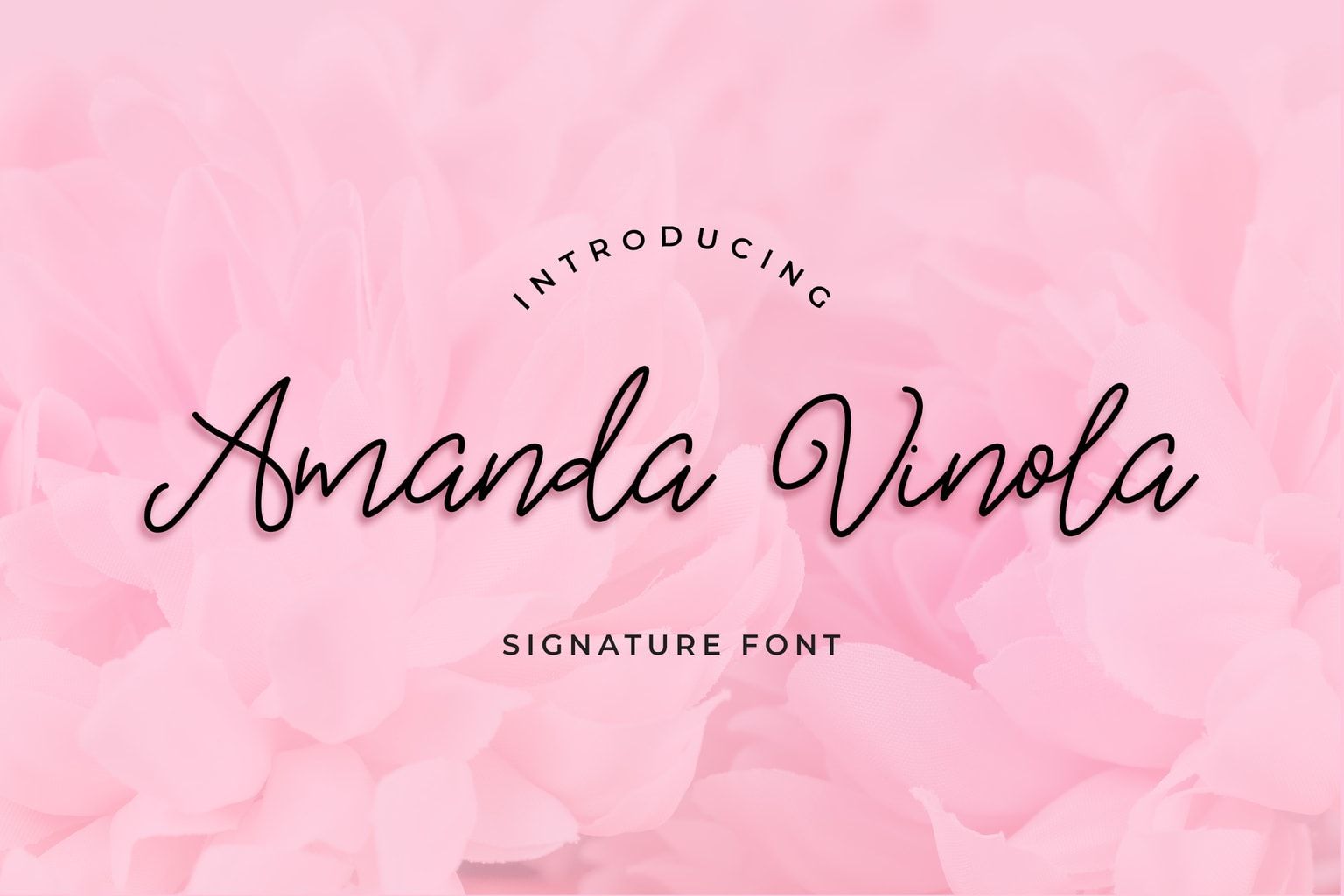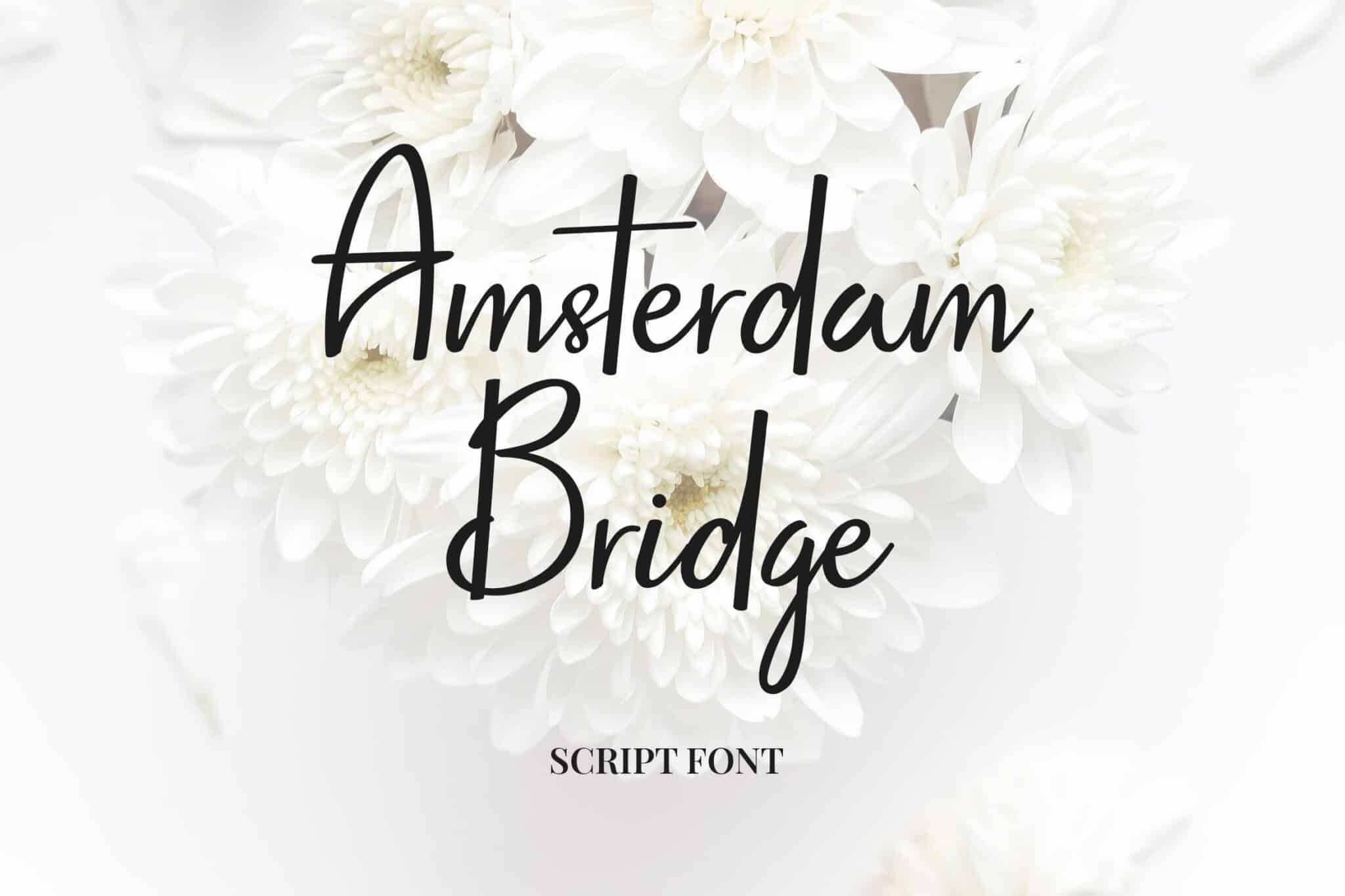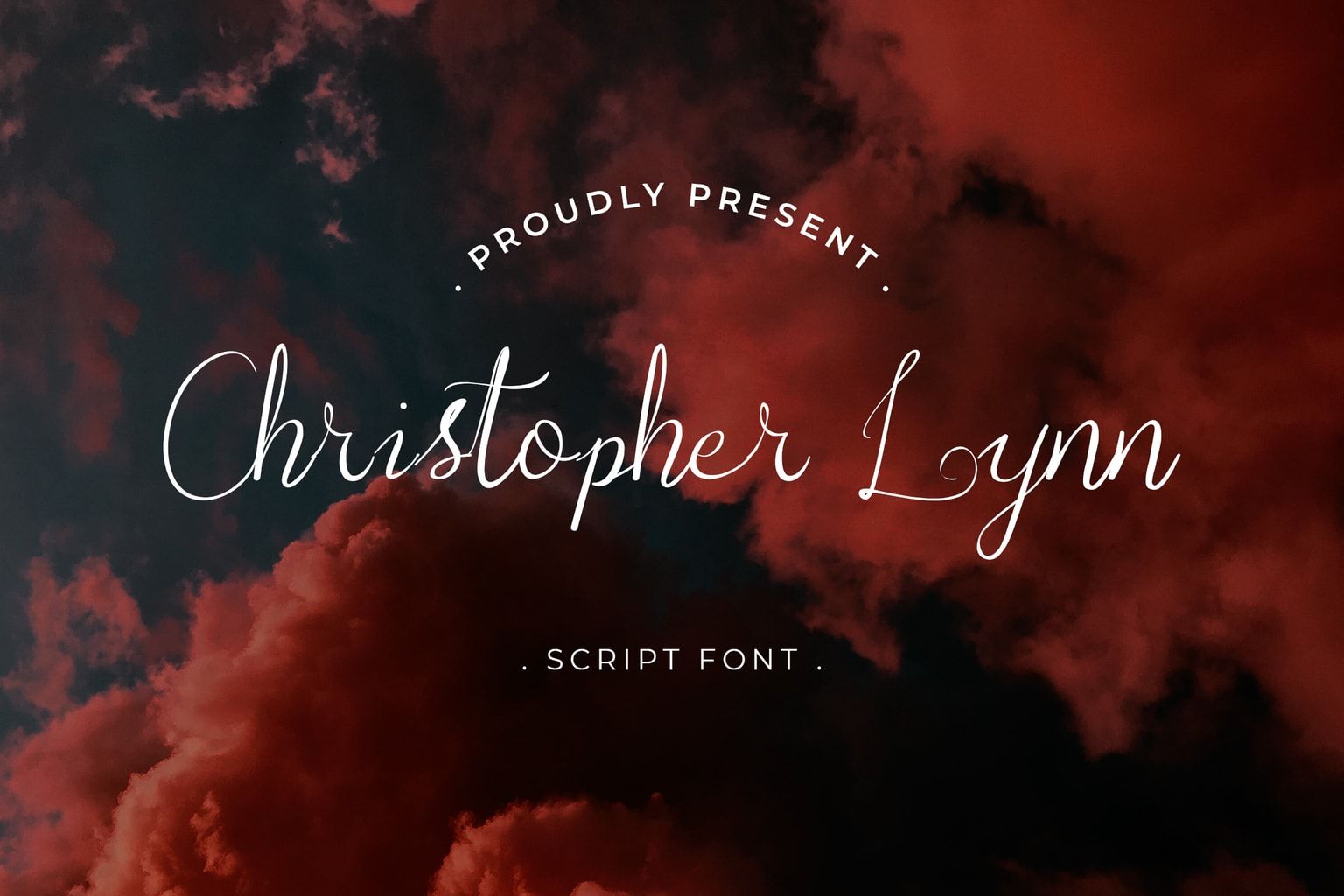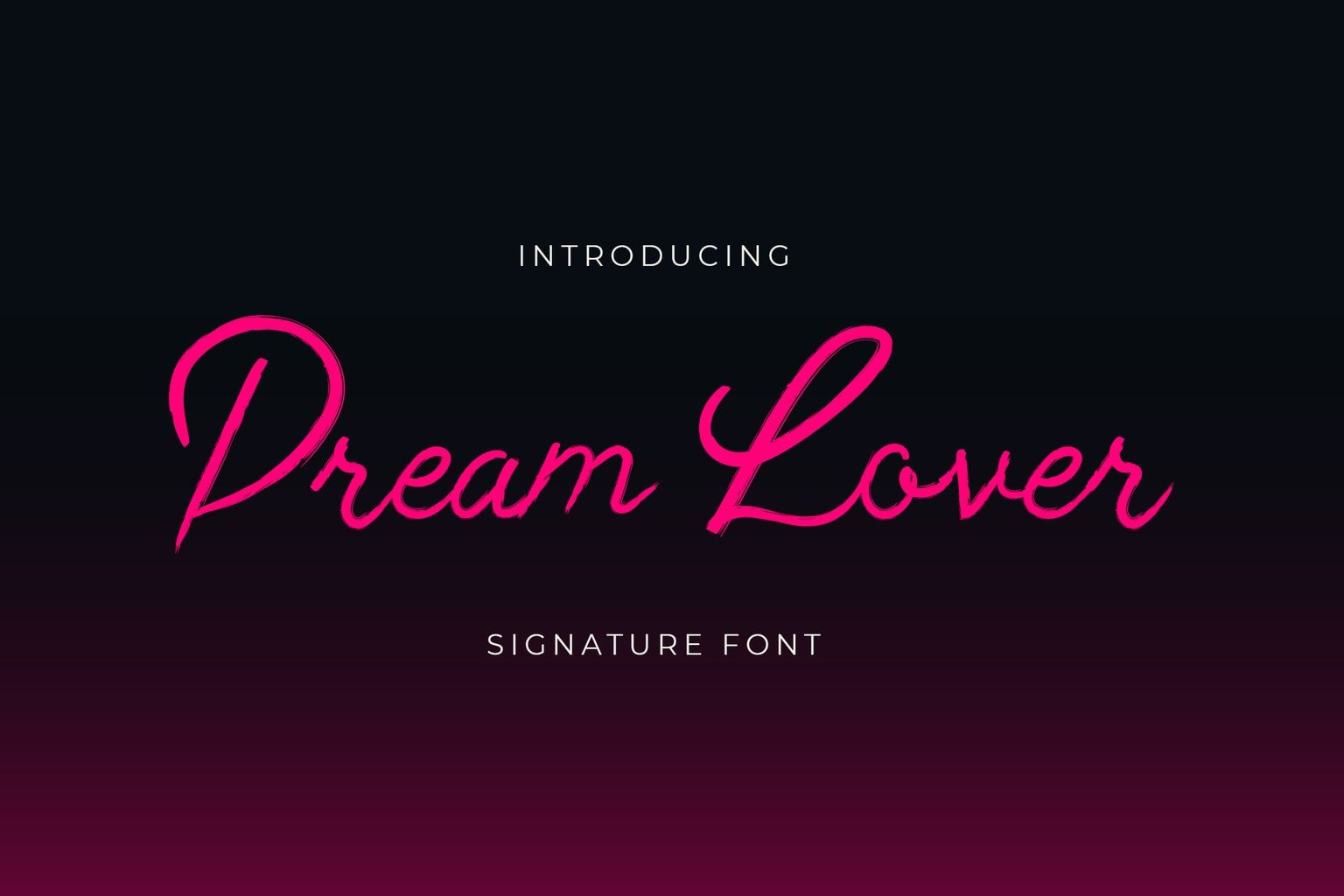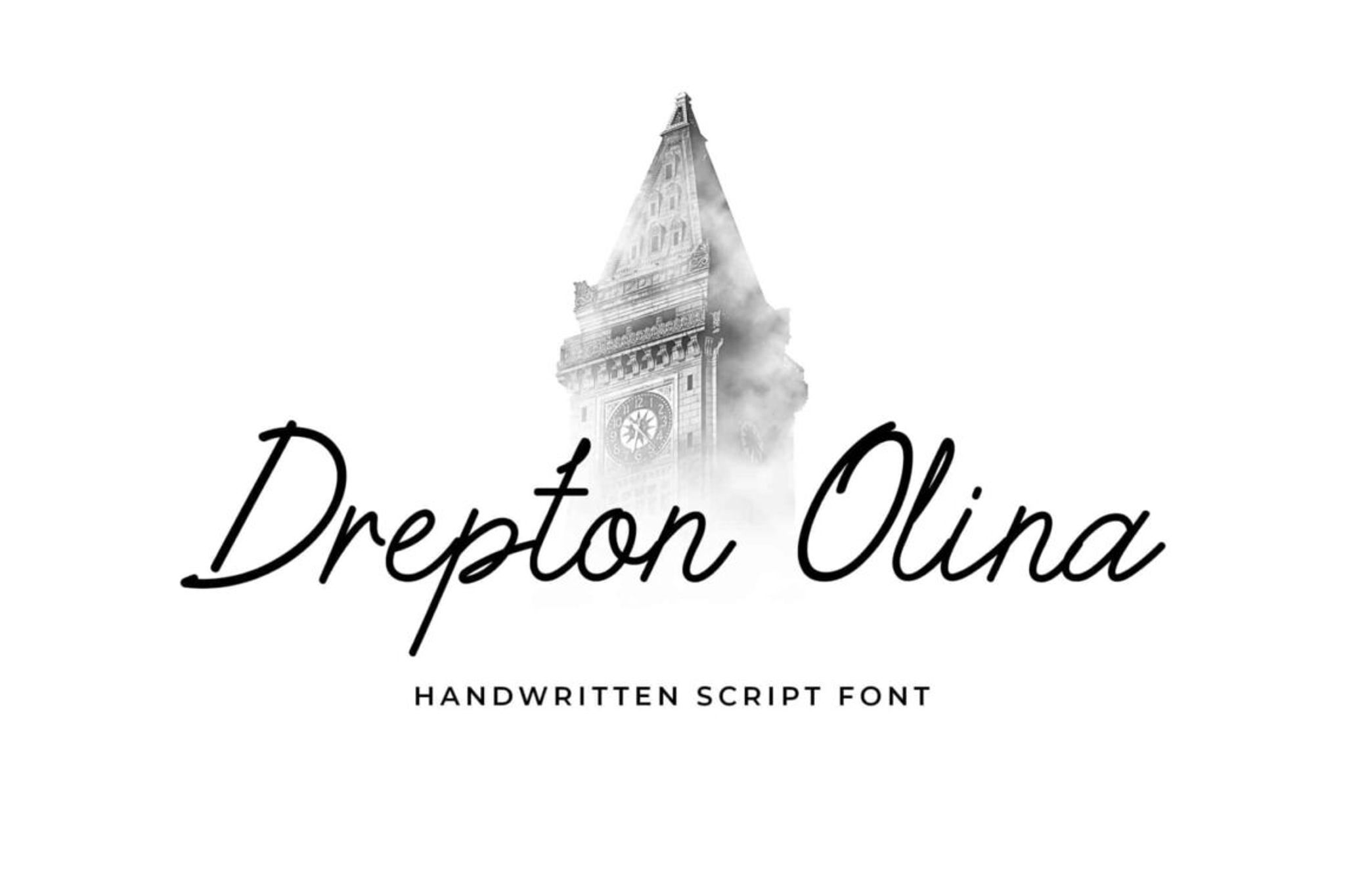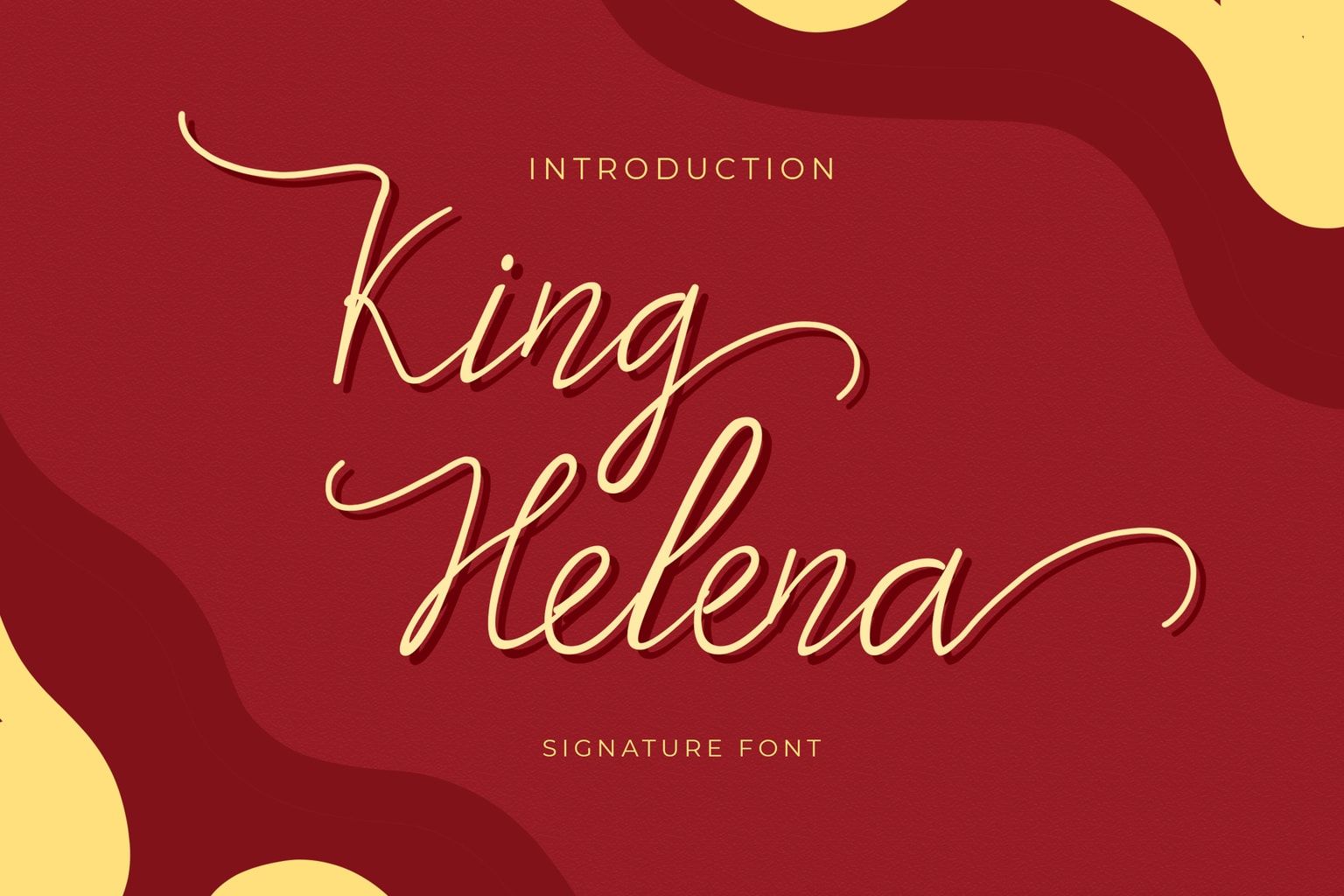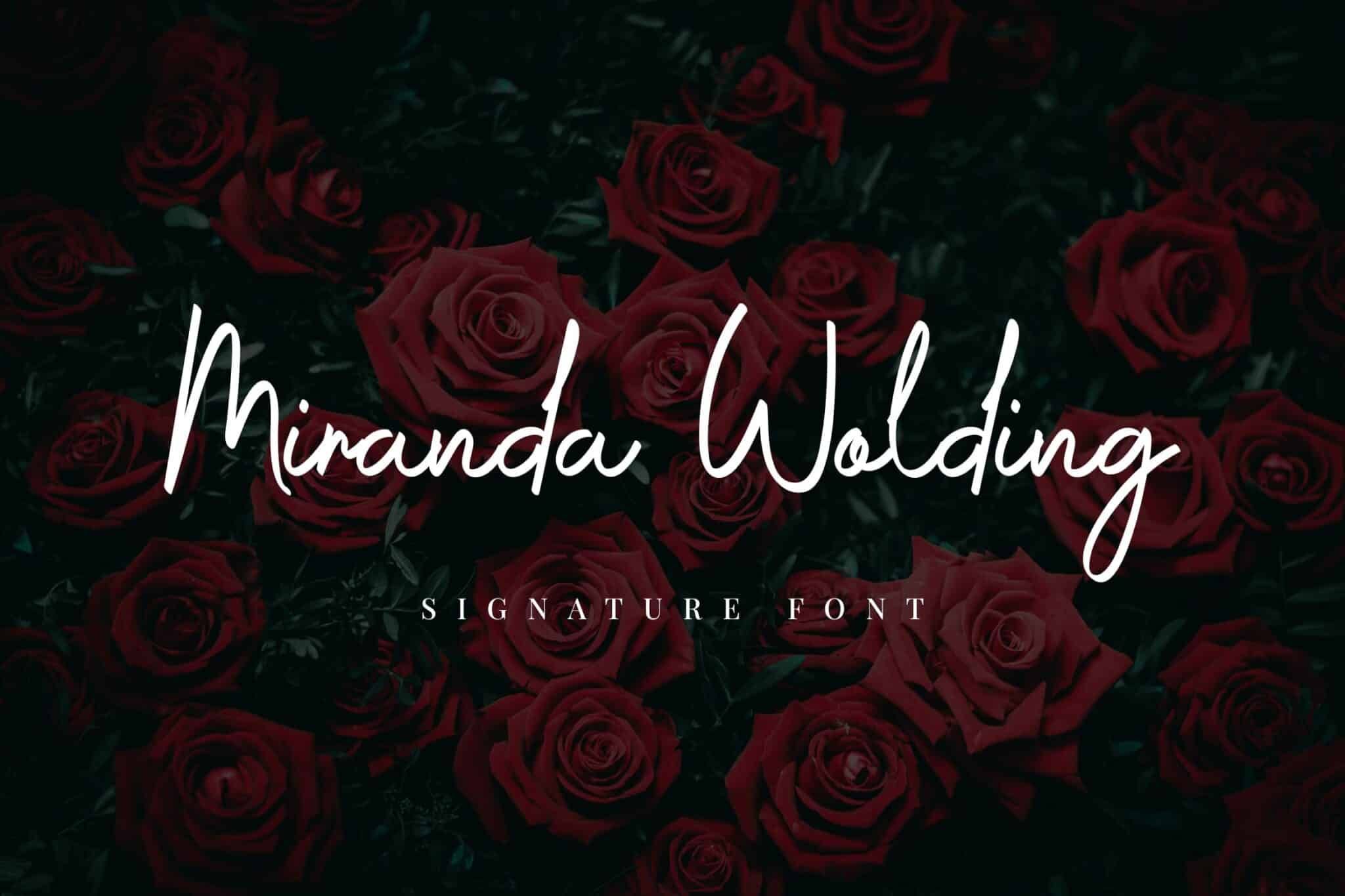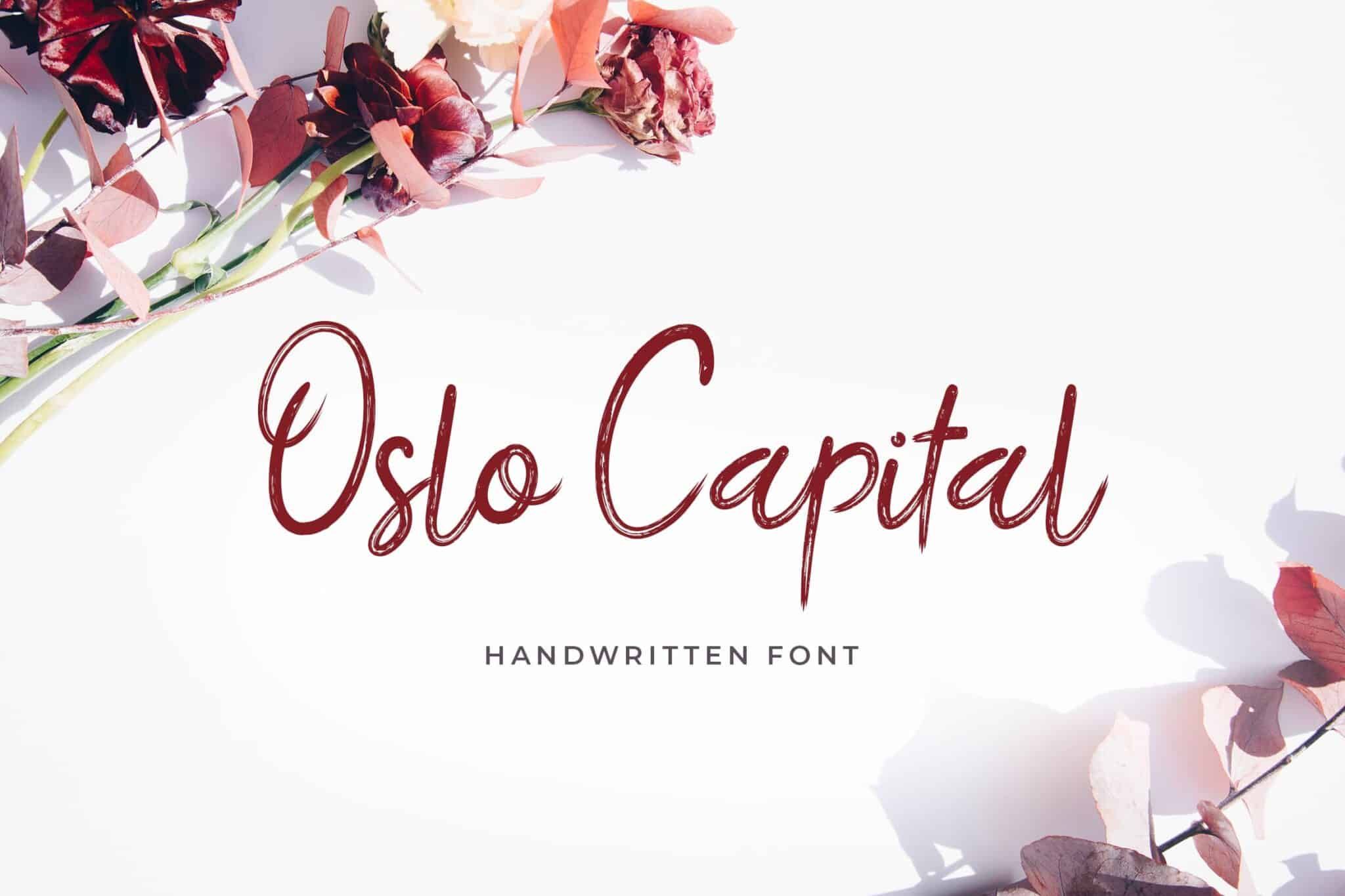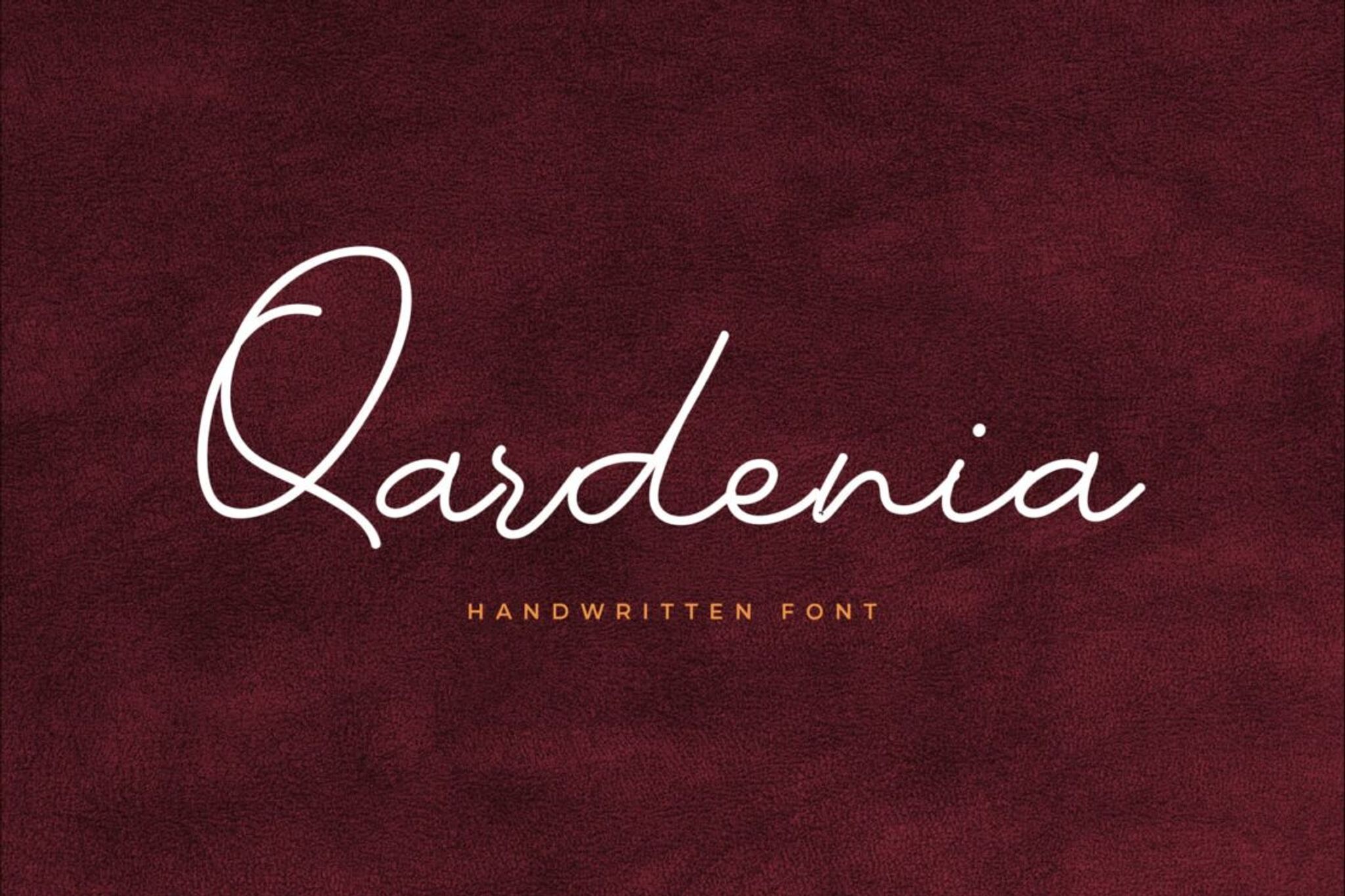
10 Best Romantic Fonts for Valentine Day
This feature is for you if you’re looking for the top 10 romantic fonts (romantic cursive fonts, best romantic fonts) currently available on the market. You can be sure that there will always be a romantic vibe in the air, and it won’t matter what time of year it is. Romantic fonts will always be excellent visual solutions that help you effectively communicate a message. Whether designing greeting cards, putting the finishing touches on wedding invitations, or preparing lovey-dovey marketing materials for Valentine’s Day, this holds.
We have compiled a list of the 10+ best romantic fonts currently available online. From scripts to serifs to handwritten typefaces, the team here at UICreative is dedicated to assisting you in presenting your narrative to the best of your ability as a storyteller.
What is the meaning of romantic fonts?
Romantic fonts is a modern classic with a sleek and luxurious serif display font. The elegant mood boards and logos you create will significantly benefit from this font. Romantic fonts include a variety of small caps, alternatives, ligatures, numerals, punctuation, and international characters.
Best Romantic Fonts
1. Amanda Vinola Handwritten Script Font
Amanda Vinola Handwritten Script Font
The Amanda Vinola Handwritten Script Font looks excellent on invitations, social media posts, and promotional posters. Beautifully feminine curves move in all the right places, making this a perfect option for romantic endeavors. This promotional option is a winner for any anniversary or Valentine’s Day campaign!
2. Willmard Valiant Signature Font
Willmard Valiant Signature Font
UICreative’s Willmard Valiant Signature Font was created to tribute the strong women in the designer’s life. Any branding or promotional materials you’re working on will benefit from this gem’s timeless yet modern touch.
3. Qardenia Signature Font
Qardenia Signature Font
Are you seeking a typeface that manages to be both adorable and ethereal simultaneously? If that’s the case, you should try the Qardenia Signature Font. This font choice, which features graceful cursive romantic fonts and a slimline appearance, works particularly well for wedding invitations and promotional designs for all aspects of romance and love partnerships.
4. Oslo Capital Handwritten Font
Oslo Capital Handwritten Font
The Oslo Capital Handwritten Font is successful in several ways. This product offered by UICreative is an additional dependable aesthetic option that can quickly finish any romantic fonts design. It features a beautiful script font. This option is excellent for branding and marketing materials because it features hearts and curves at the ends of certain letters.
5. Miranda Wolding Handwritten Script
Miranda Wolding Handwritten Script
Consider using the Miranda Wolding font for handwriting projects requiring a lovely script style. This font bundle is a beautiful selection that is both easy on the eyes and delightful to look at due to the presence of broad frames and curved edges throughout the set. This item, which features lettering reminiscent of that found on wedding invitations, is a cherished classic in the design scene. It is not difficult to understand why this is the case.
6. Drepton Olina Romantic Fonts
Drepton Olina Handwritten Font
This is a calligraphy font available on UICreative. It is evidence that calligraphy fonts are among the most powerful components of romantic design. This font bundle is slender and features many loops for many of its characters. As a result, it may be described as both dreamy and playful simultaneously. A pack such as this one gives you many options for your marketing, branding, and graphic design projects. There’s a lot you can do with it.
7. Amsterdam Bridge Handwritten Font
Amsterdam Bridge Handwritten Script
You will have a great time making the most of UICreative’s Amsterdam Bridge, regardless of whether or not you are a single creative person. This piece, which features another elegant-looking script font, is one of the typefaces on the list that may be used in various contexts. It is simple to see why so many people are drawn to these romantic fonts because it is not only sleek but also easier on the eyes and more legible than other fonts.
8. Dream Lover Brush Handwritten Font
Dream Lover Brush Handwritten Font
UICreative creates this and is likely to be recognized as one of the most well-known typefaces on the list. This selection, which features romantic fonts, is most frequently found on wedding invitations and other documents related to weddings. This choice is guaranteed to communicate since it is well-suited for use in corporate giveaways, creative designs, and other love-themed projects in general.
9. King Helena Romantic Fonts
King Helena Script Handwritten Monoline Font - romantic cursive fonts